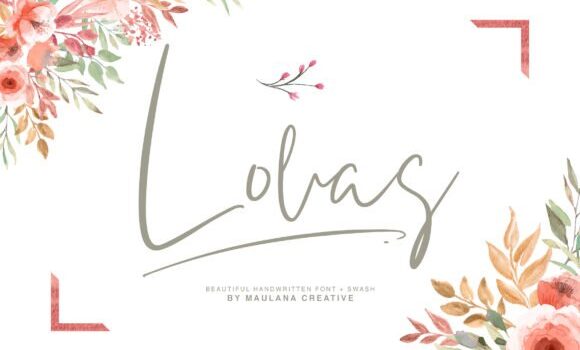
lovas
Lovas Script Font – Free Download Introduction to Lovas Script Font Lovas is a romantic and light handwritten font, featuring lovely lettering. 📸 Preview Gallery 5 images 📌 Product Name Lovas Script Font 👤 Author Maulana Creative 📂 Category Explore